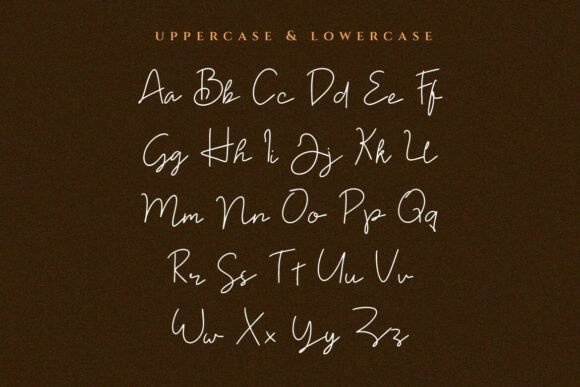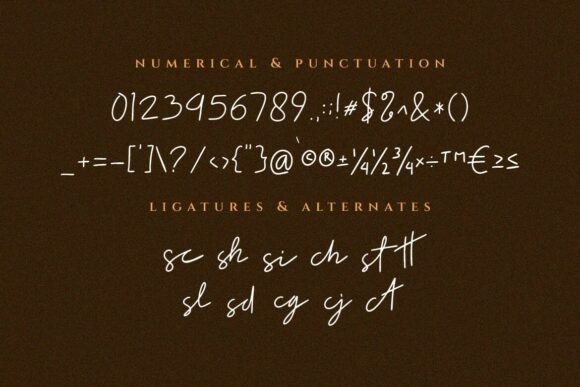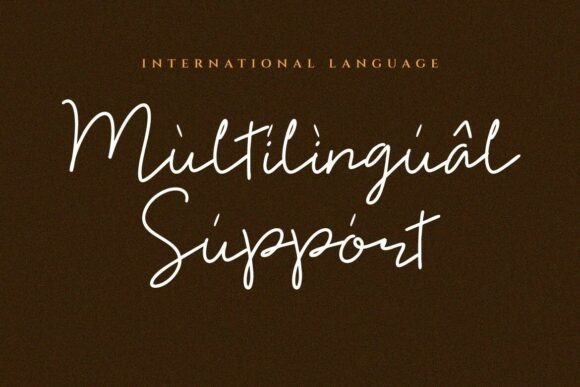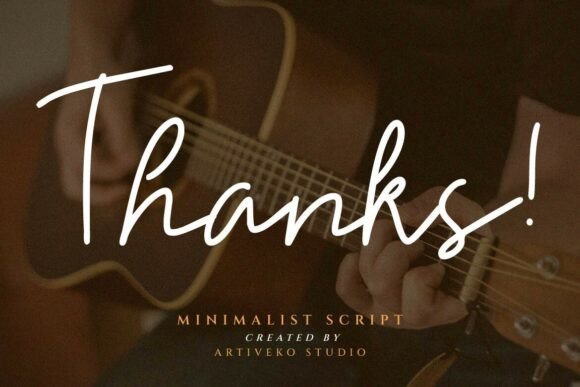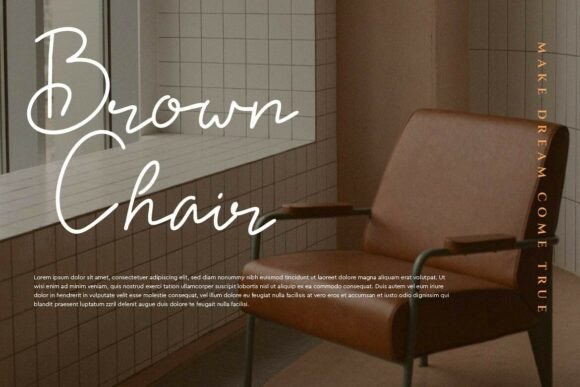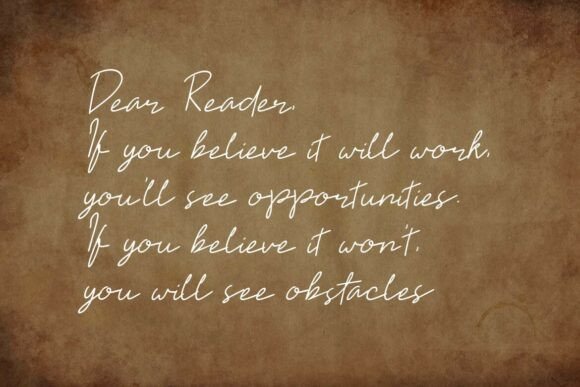
Introduction to Elitta Font
Elitta is an elegant handwritten script font designed to bring a personal and sophisticated touch to your projects.
With its fluid strokes, smooth curves, and natural flow, Elitta creates a sense of warmth and refinement thatโs perfect for wedding invitations, branding, product packaging, greeting cards, and social media graphics .
Key Features of Elitta Font
Why Choose Elitta Font?
Elitta Font offers exceptional quality and versatility, making it a valuable addition to your design toolkit. Whether you’re creating for personal projects or commercial use, Elitta Font delivers professional results.